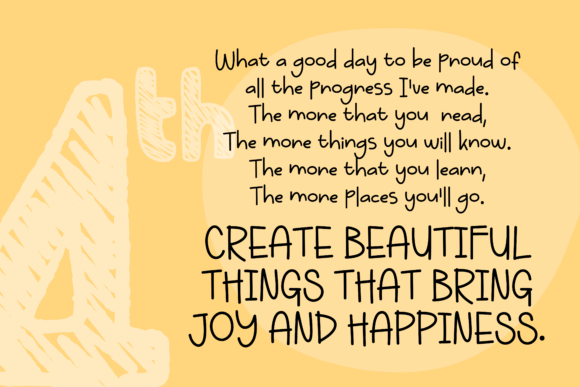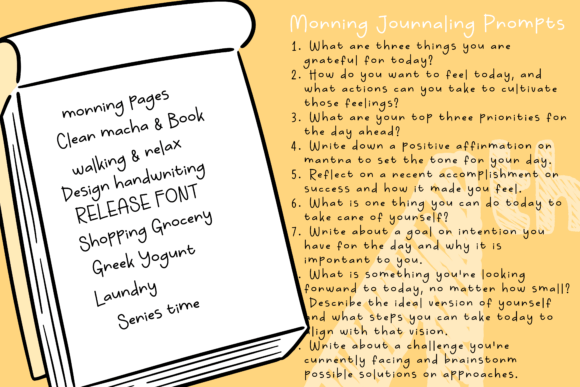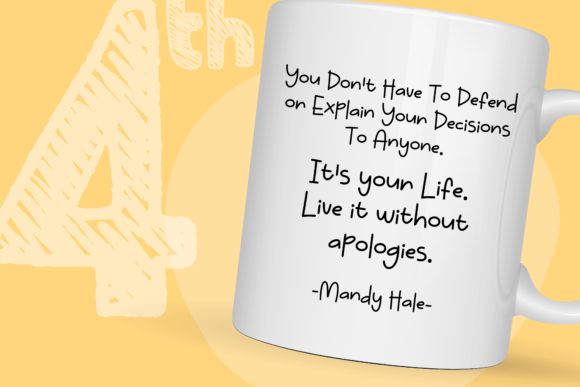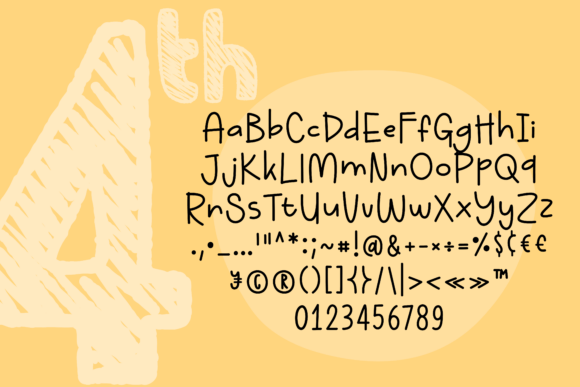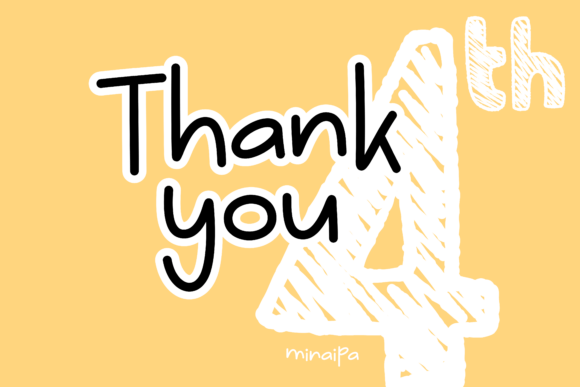
Introduction to Fourth Font Font
Fonts play a crucial role in design, and the Fourth Font font is a typeface that brings both character and versatility to any project. Whether you’re working on a branding project, a website, or a print design, the Fourth Font font offers a unique style that can elevate your work.
Elevate your creative projects with the Fourth font , a delightfully quirky and friendly handwritten sans serif designed to bring a smile to your audience.
This Fourth typeface captures a perfect balance of charm and legibility, making it an essential tool for designers who want to add a personal, βhumanβ touch to their work Whether you are crafting custom apparel like t-shirts, hoodies, and tote bags, or designing cozy kitchenware like coffee mugs, the Fourth font provides that sought-after cute aesthetic.
Key Features of Fourth Font Font
Why Choose Fourth Font Font?
The Fourth Font font is more than just a typeface β it’s a design tool that helps you communicate your message with style and clarity. Its unique character set and versatile design make it suitable for a wide range of applications, from elegant invitations to bold headlines.
With its carefully crafted letterforms and balanced proportions, the Fourth Font font ensures readability and visual appeal across all mediums.
What makes Fourth Font font special?
The Fourth Font font stands out with its unique design, exceptional readability, and versatility across various design applications.